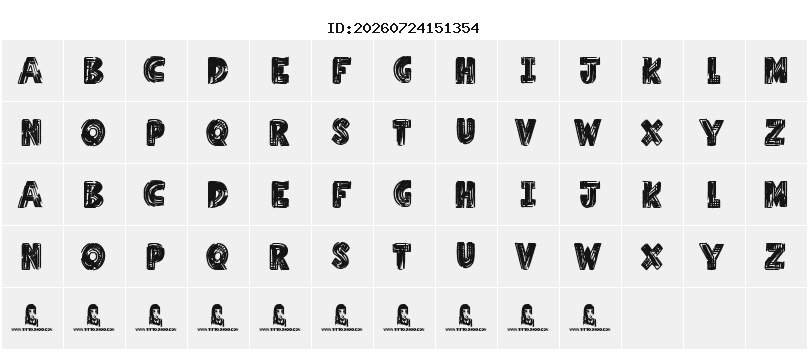
Millennium Preview
• Font Name: Millennium
• Designer: Jonathan S. Harris
• Manufacturer: Jonathan S. Harris
About Millennium.otf
Millennium.otf is a modern, elegant sans-serif font designed for ultimate readability and visual harmony. Perfect for branding, headlines, web design, and print materials.